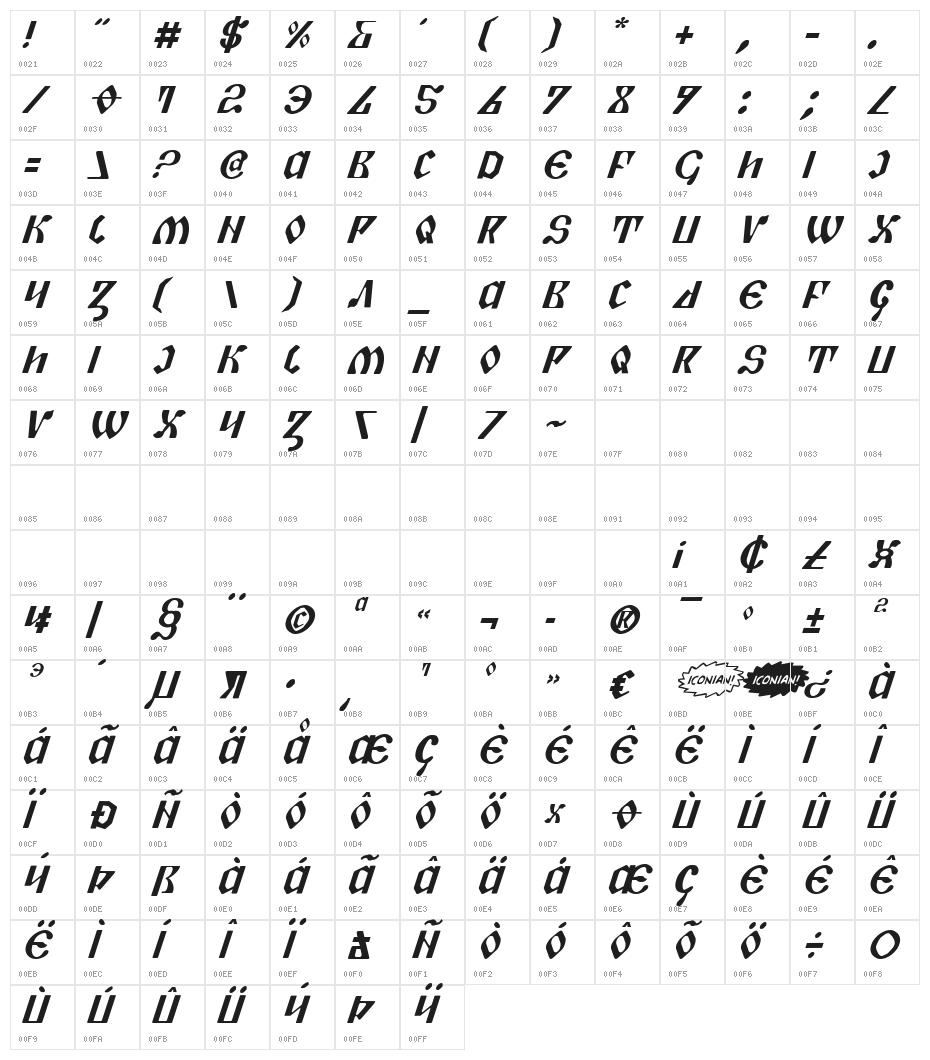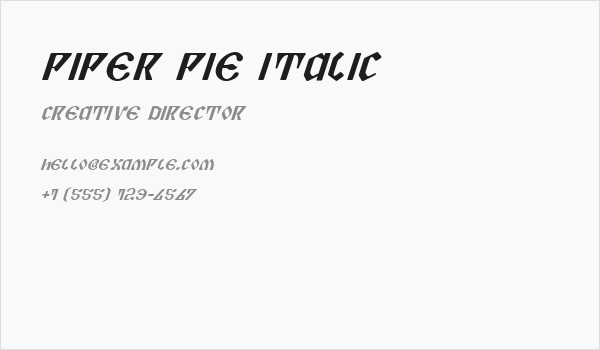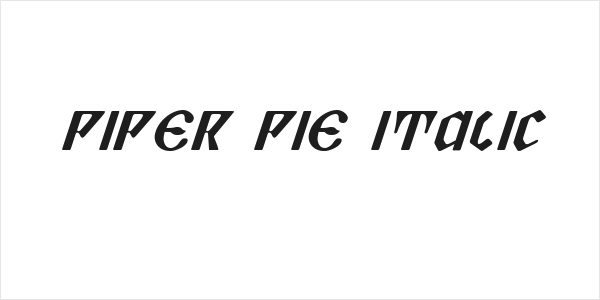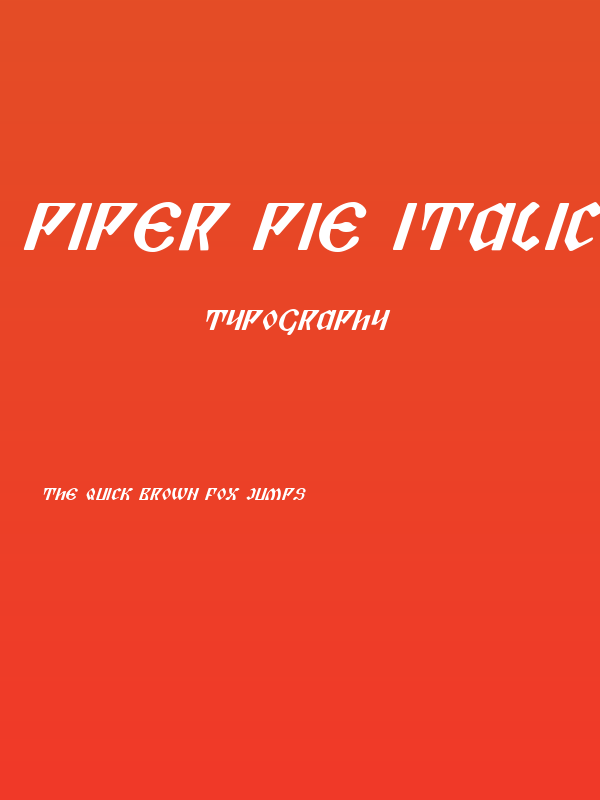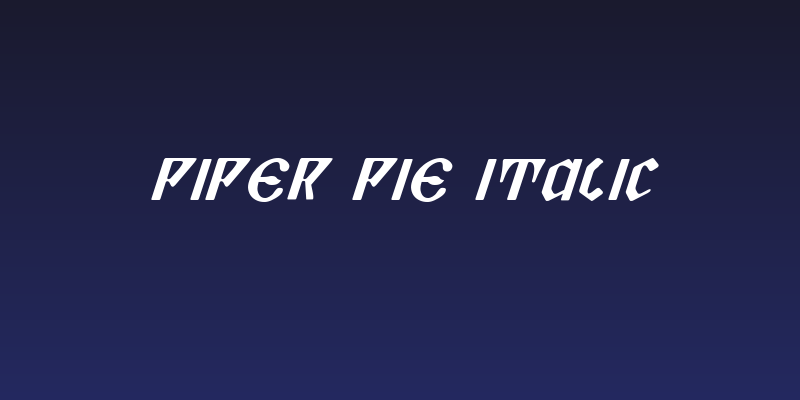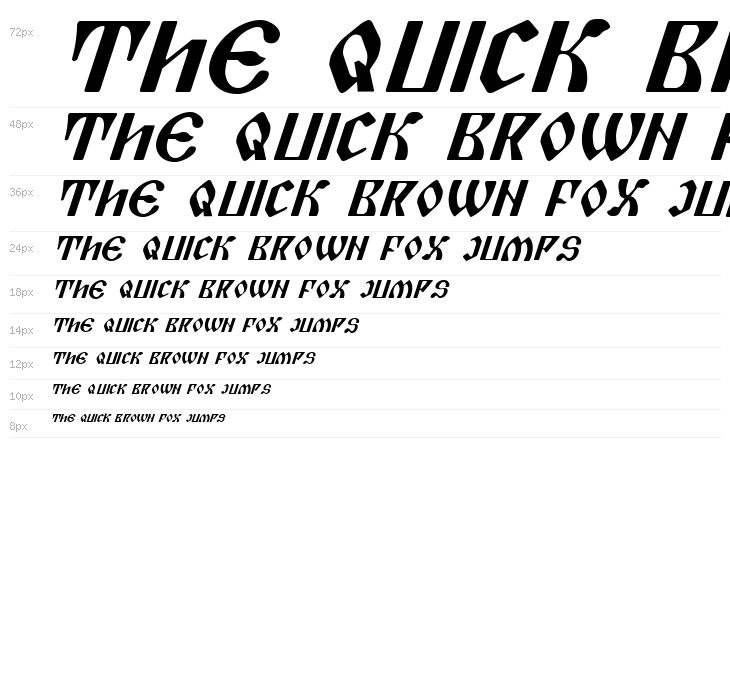
Piper Pie Italic Font
Piper Pie Italic Description
This font features a bold and dynamic italic style with sharp, angular edges and a distinct slant, giving it a modern and energetic appearance. The characters are well-defined with a consistent stroke width, creating a sense of uniformity and balance. The uppercase letters exhibit a strong presence, while the lowercase letters maintain a cohesive flow. The numerals are clear and legible, matching the overall aesthetic of the alphabet. Special characters are designed to complement the font's bold style, making it suitable for attention-grabbing headlines and impactful designs.